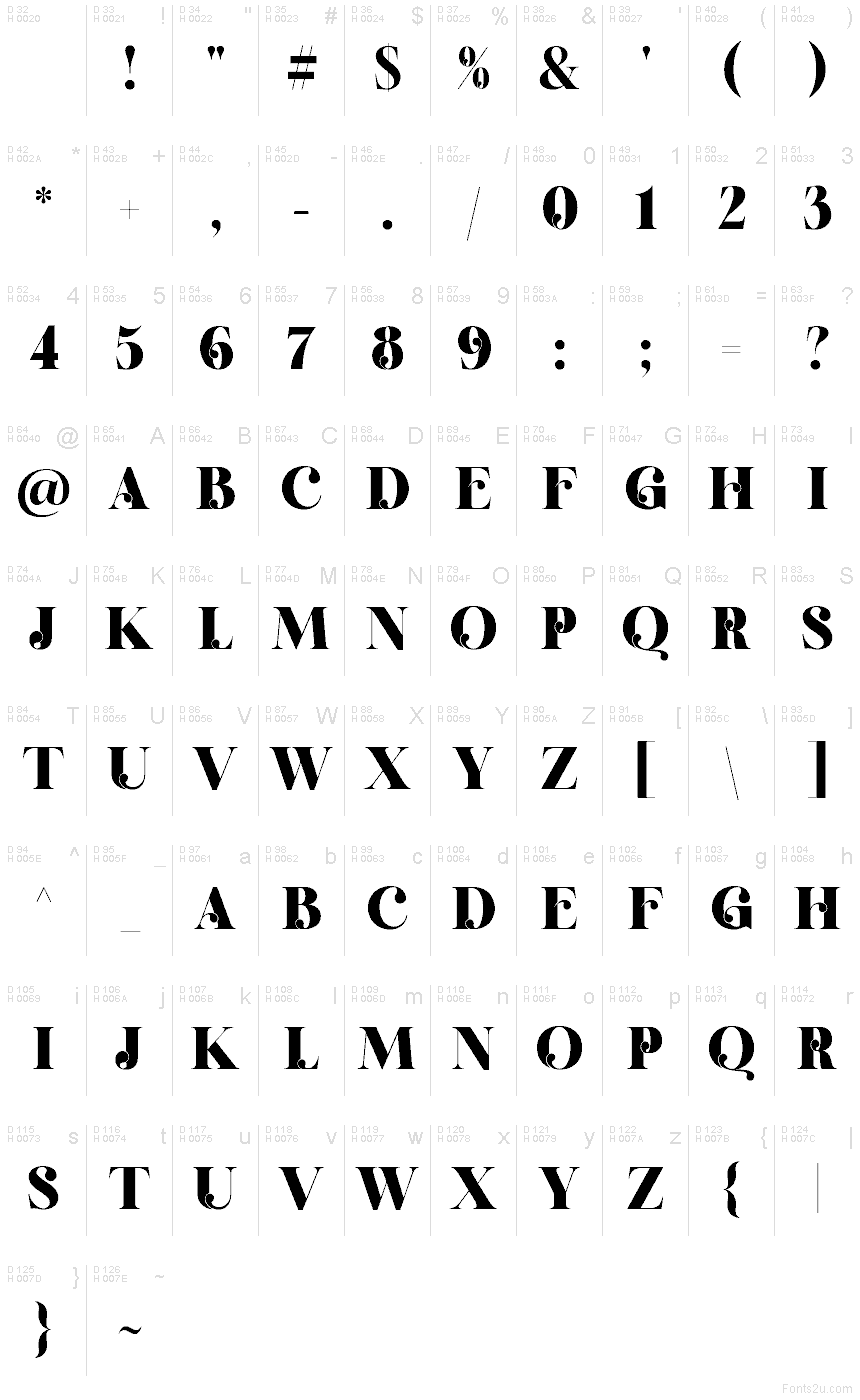
Gloria font by Graphicxell is a free vintage curly serif typeface. Thick, inky strokes are carved into dramatic curves, with plump spiral terminals that feel almost sculpted. The letters lock together like poster woodcuts-bold slabs softened by velvety flourishes-giving headlines a theatrical, old-world glow without slipping into kitsch.
Using the Gloria font, you can command attention on wine labels, boutique logos, book covers, event posters, artisanal packaging, and editorial drop caps. Its steady rhythm and lush swirls create a rich silhouette that reads fast at large sizes; add a touch of tracking for extra air. Pair this free font with a crisp geometric sans for body copy to keep the spotlight where it belongs.